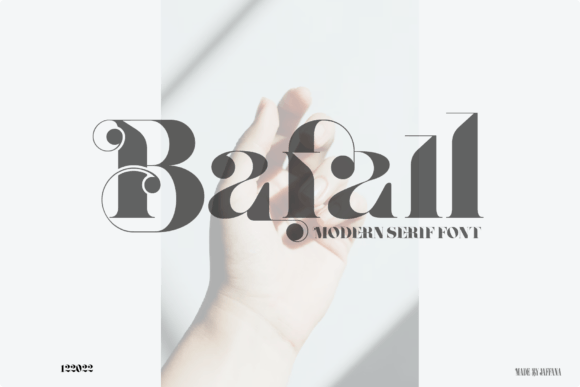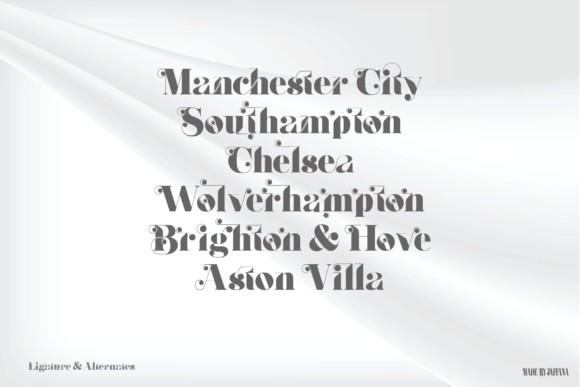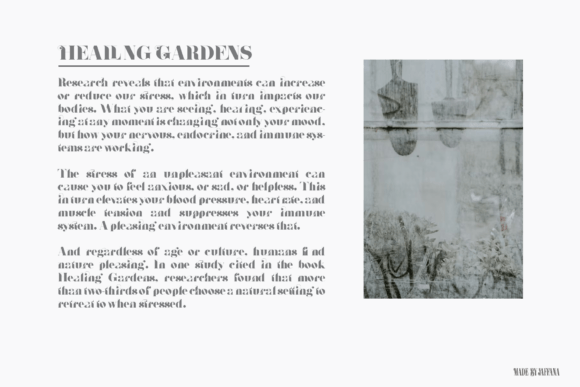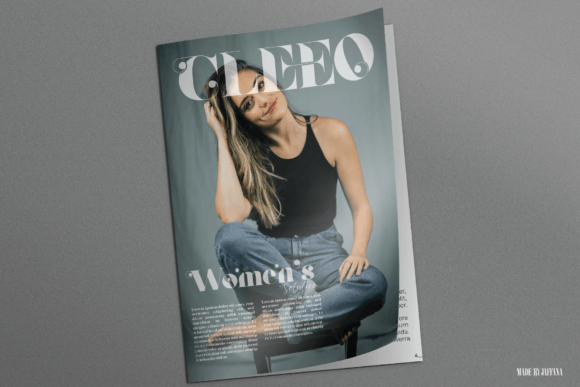
Bafall Font: Modern Serif for Elegant Logo Design & Branding
About the Bafall Font
Welcome to the world of Bafall Font, a typeface that will inspire your next great project. Bafali is a fun and modern serif font featuring a lightweight feel. It is perfect for crafters and graphic artists, and it is great for creative projects, inspiring cover posters, or communicating your brand.
Bafall’s lightweight feel and modern serif design make it ideal for headlines, short body text, and branding applications where a touch of playful sophistication is desired. It works exceptionally well on packaging, posters, and social media graphics, adding a touch of visual interest without overwhelming the design. However, its delicate nature makes it less suitable for lengthy paragraphs or UI elements where high readability is paramount.
Consider pairing Bafall with a clean sans-serif like Open Sans for a balanced and contemporary feel, or a playful script font such as Pacifico for a more whimsical aesthetic. For a more classic approach, a neutral serif such as Garamond could provide a sophisticated counterpoint.
Bafall projects a friendly, modern, and approachable personality, making it a versatile choice for brands targeting a younger demographic or those wishing to communicate creativity and approachability.